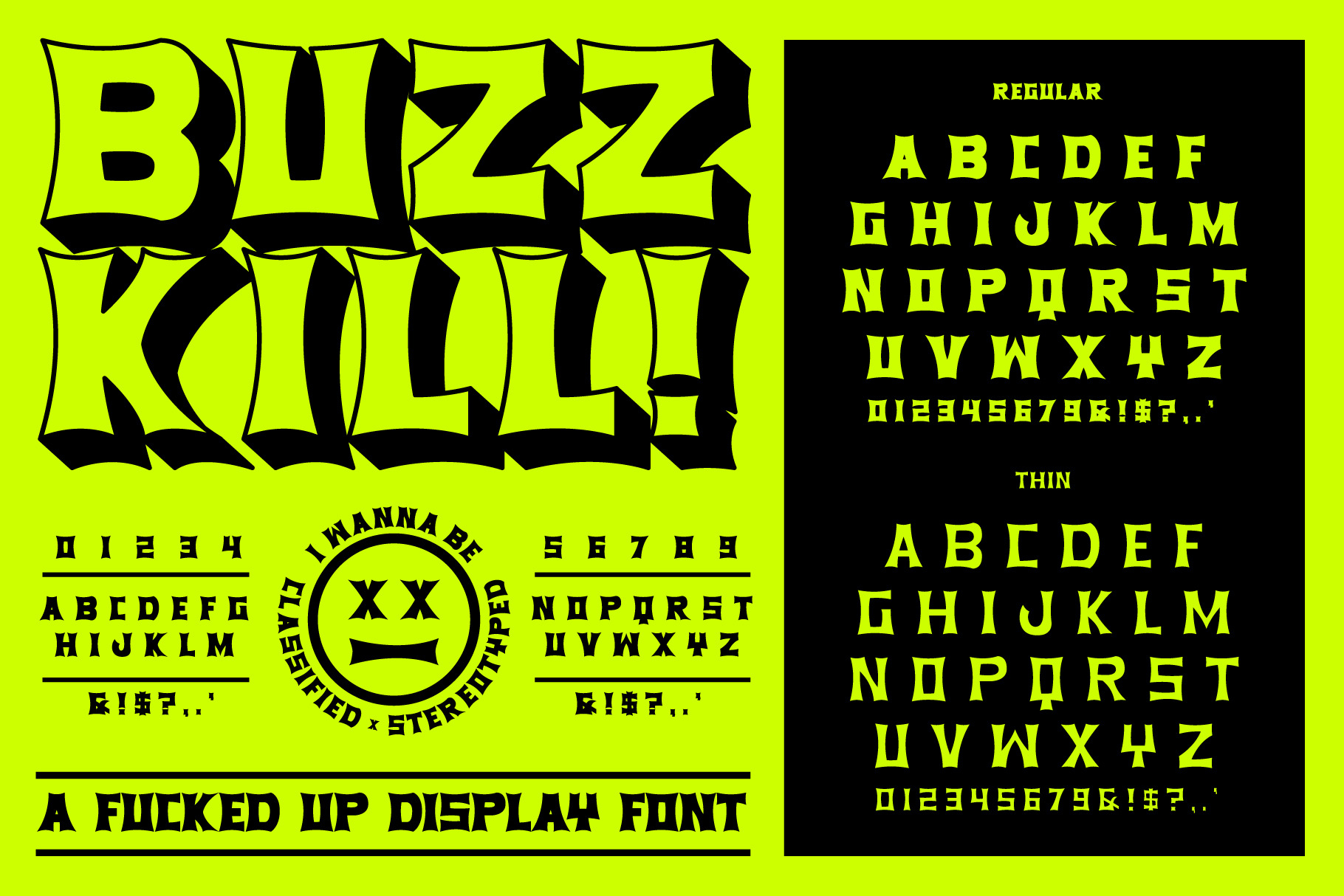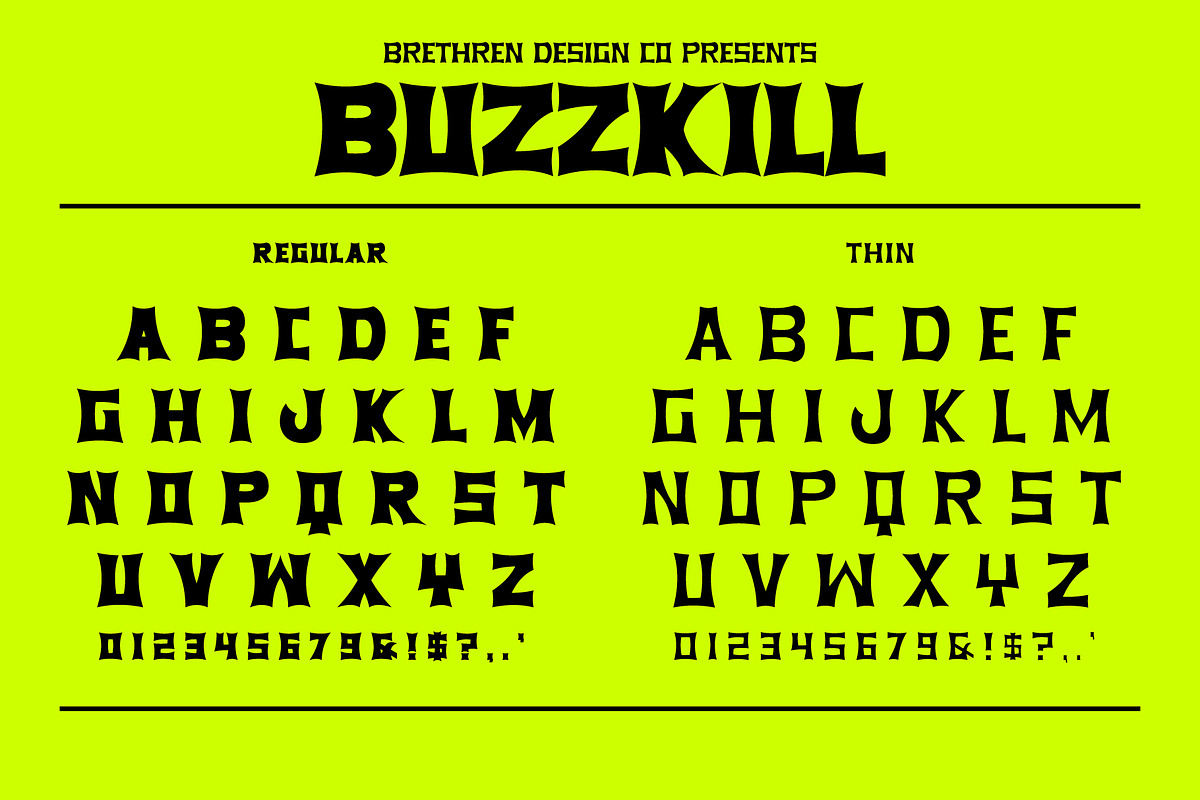
Buzzkill Display Font
Buzzkill is an edgy display font. Featuring splayed edges that aren’t quite sans but not so much serifs either. This font is fucked up!